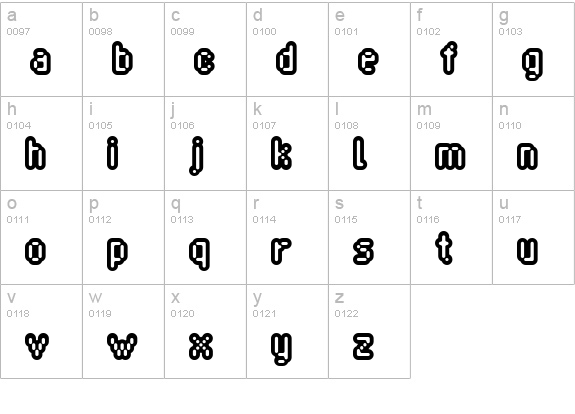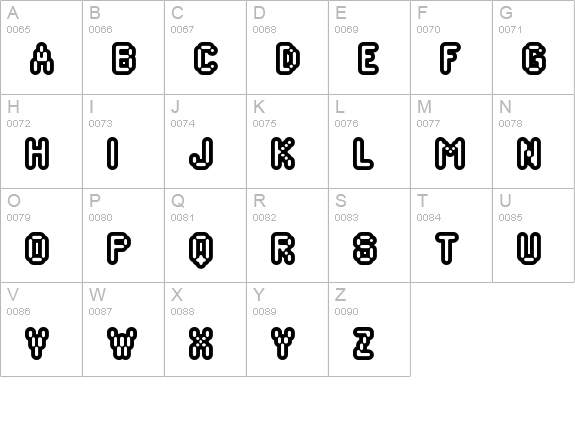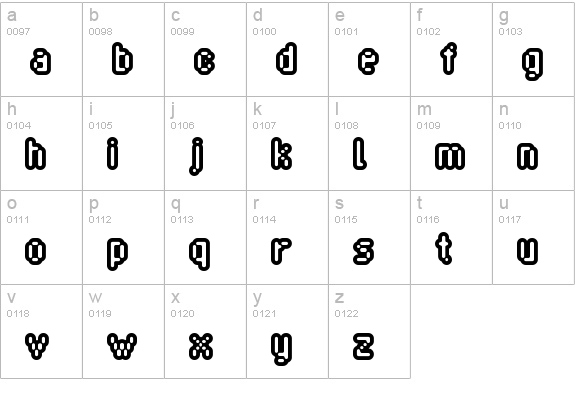
Blippia Font Details
Blippia font is a modern and stylish typeface that combines sleek lines with a touch of playfulness. With its clean and legible design, Blippia is suitable for a wide range of design projects, from branding to editorial layouts. This versatile font offers a unique blend of sophistication and charm, making it perfect for both digital and print applications. Moreover, Blippia font is available for free download at FontsMarket.com, making it easily accessible for designers and creatives looking to elevate their projects with a touch of contemporary flair. Whether you're working on a website design, packaging, or marketing materials, Blippia font will add a touch of elegance and originality to your work. Download Blippia font today and unleash your creativity with this delightful typeface.